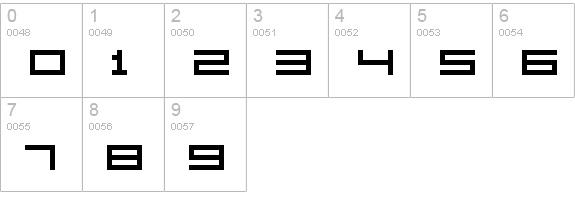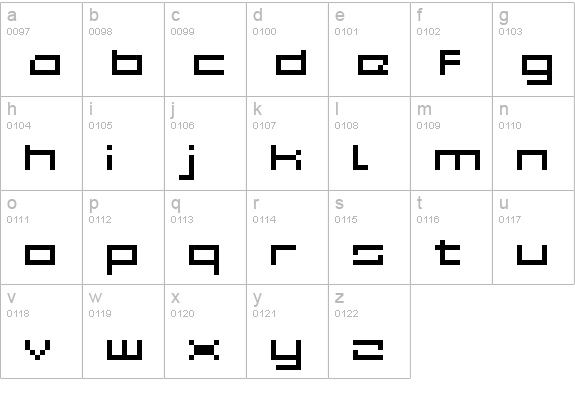
Grixel Acme 5 Wide is a distinctive, extended-width variant in the Grixel typeface family \xE2\x80\x94 well suited to design and typography projects.
Grixel Acme 5 Wide font is a stunning typeface that exudes a perfect blend of modernity and retro charm. With its bold and prominent letterforms, this font is ideal for creating eye-catching headlines, posters, and branding materials that demand attention. The wide spacing of the characters gives a strong presence to any design, making it stand out from the crowd. What's even more impressive is that Grixel Acme 5 Wide font is available for free download at FontsMarket.com. This means that you can easily access this versatile typeface and incorporate it into your projects without any cost. Whether you're a designer looking to add a unique touch to your creations or a typographer exploring new possibilities, this font is sure to inspire and captivate you. Don't miss out on the opportunity to enhance your designs with the distinctive style of Grixel Acme 5 Wide font. Download it for free today and unleash your creativity with this exceptional typeface.